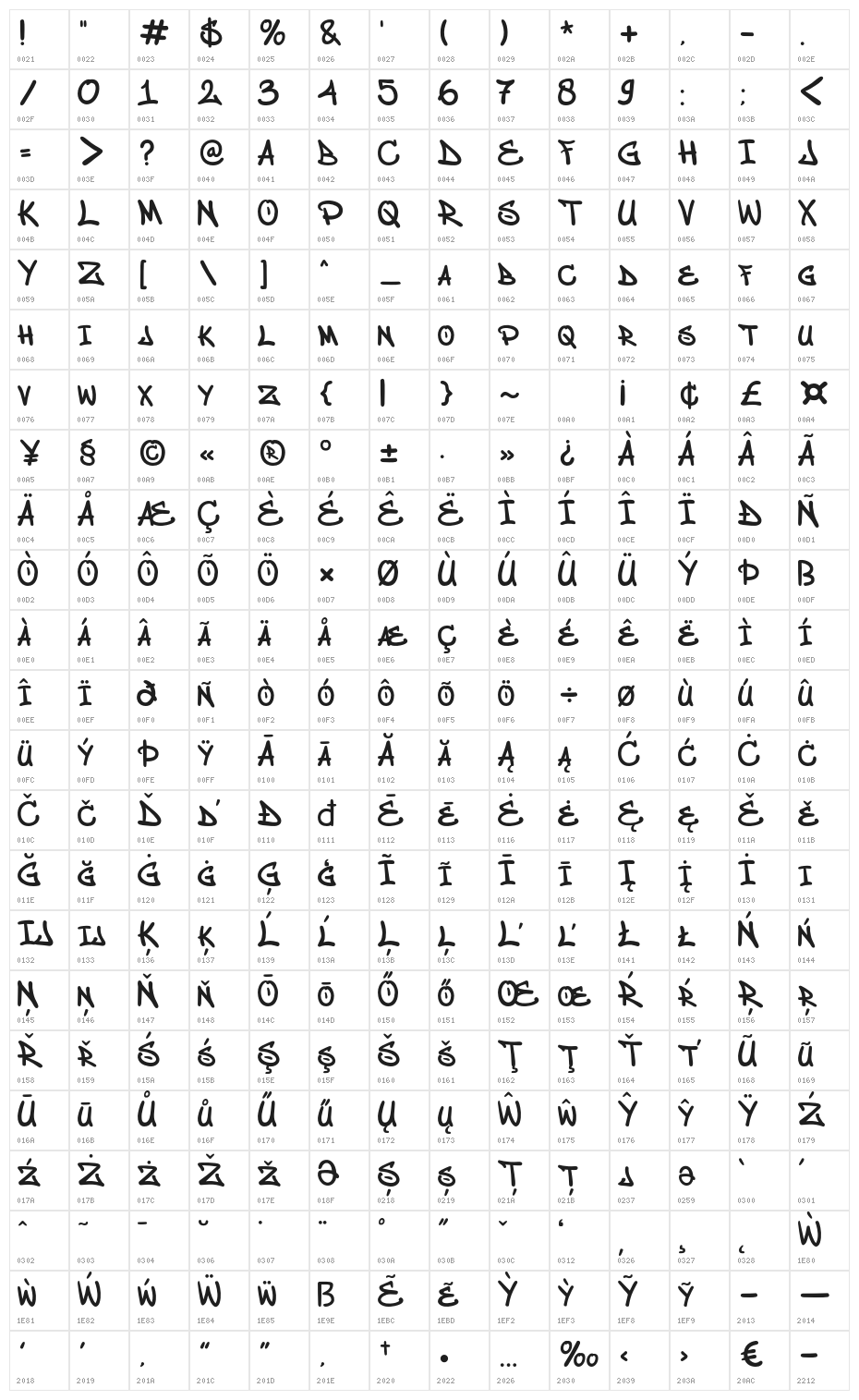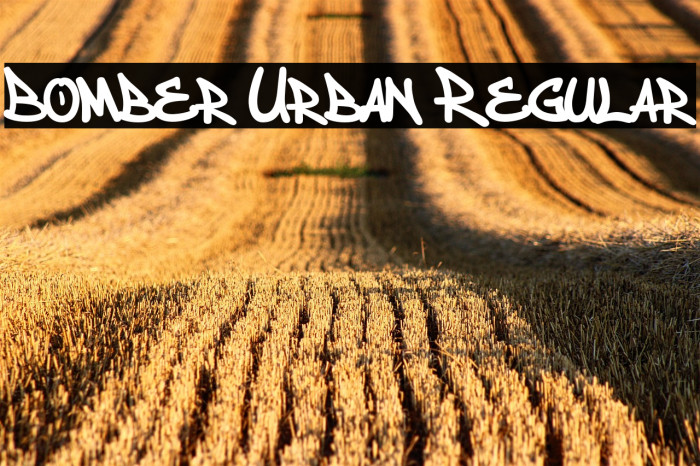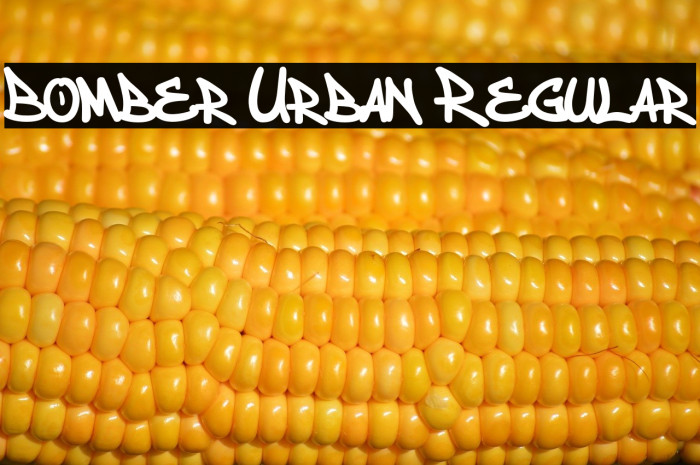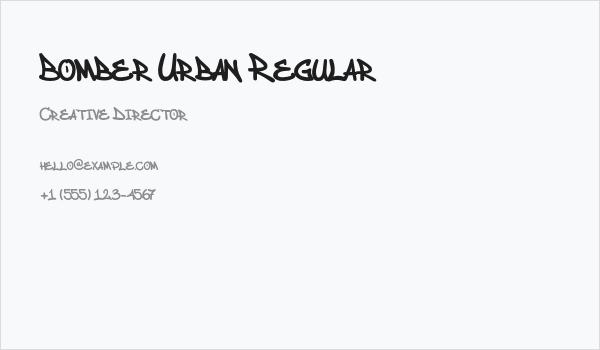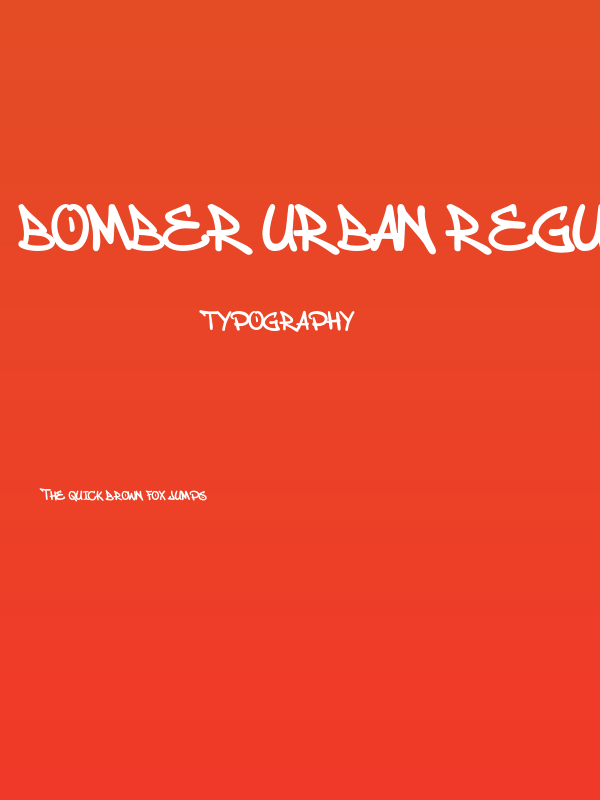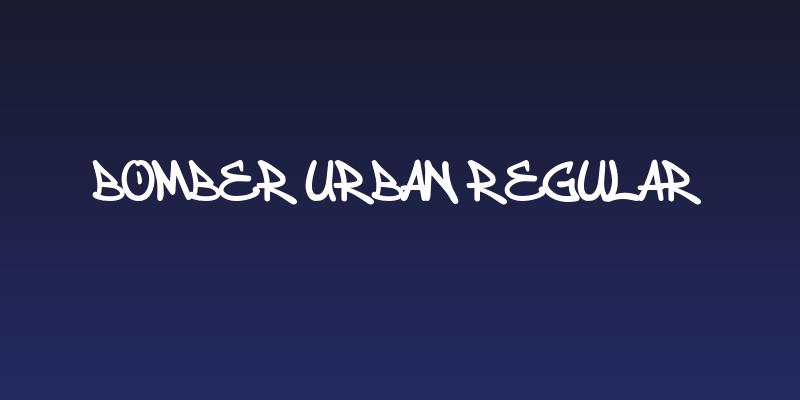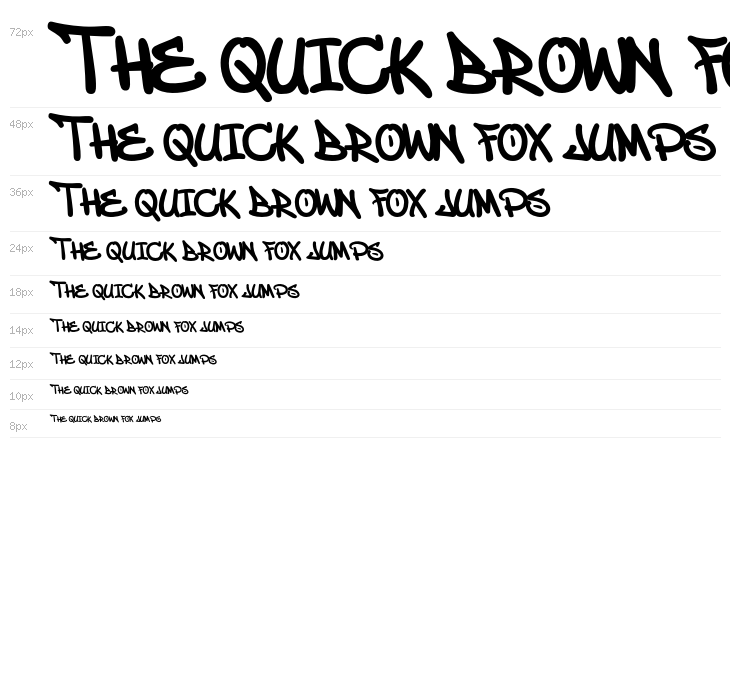
Bomber Urban Regular Font
Bomber Urban Regular Description
This font features a bold, graffiti-inspired style with a playful and urban aesthetic. The characters are rounded and slightly slanted, giving them a dynamic and energetic appearance. The uppercase and lowercase letters maintain a consistent style, with exaggerated curves and a sense of movement. Numbers and special characters are designed to match the overall theme, making the font suitable for creative and informal projects. The thick strokes and unique character shapes make it stand out, ideal for capturing attention.
| Overall Style | Urban, Playful, Energetic |
| Proposed Projects | Ideal for street art designs, urban-themed posters, music album covers, and creative branding projects. |